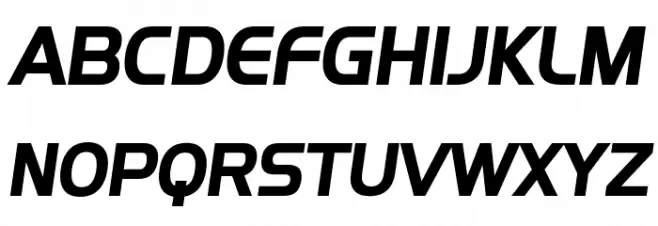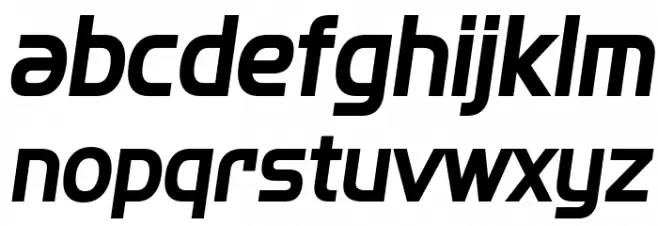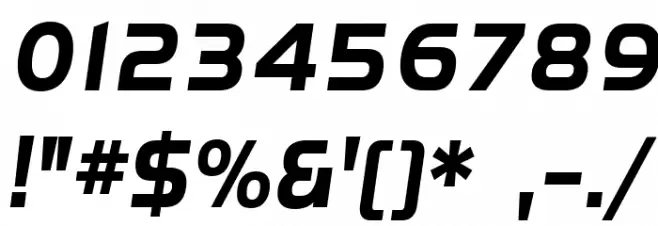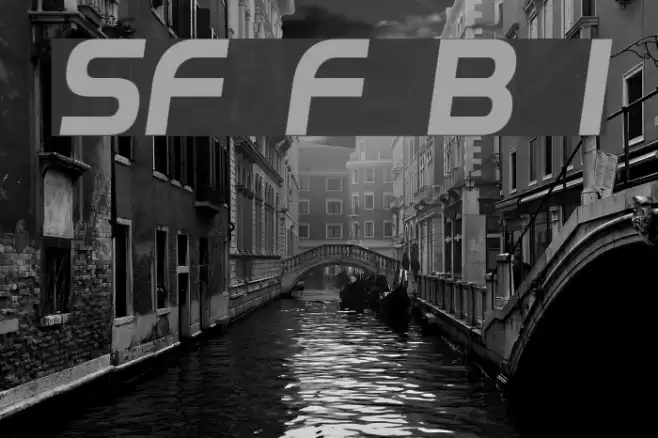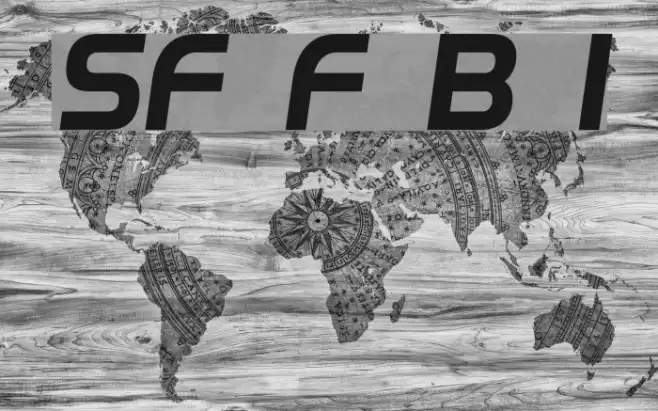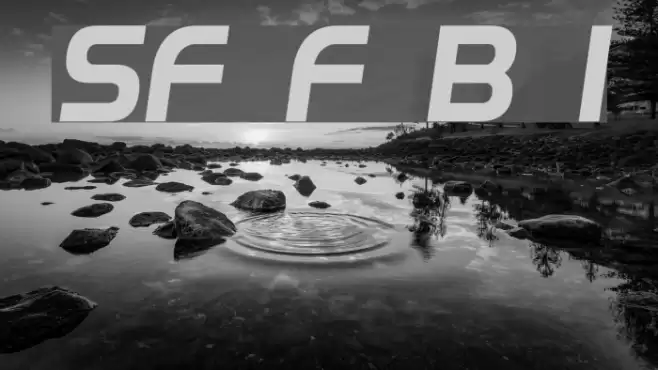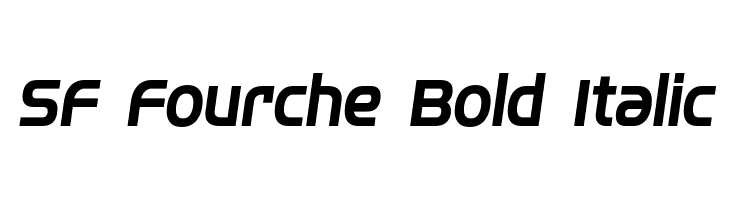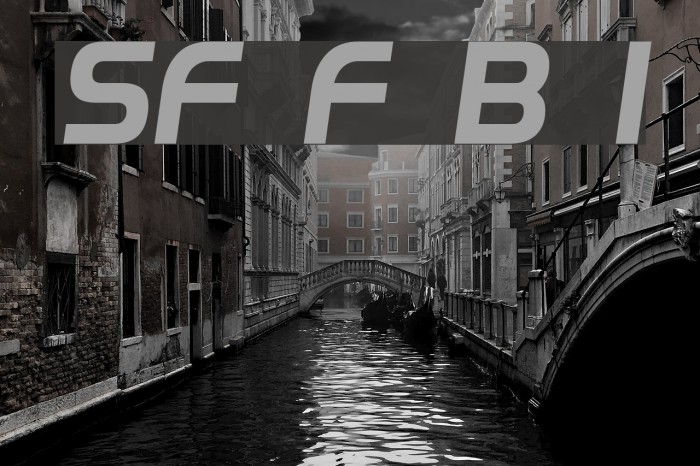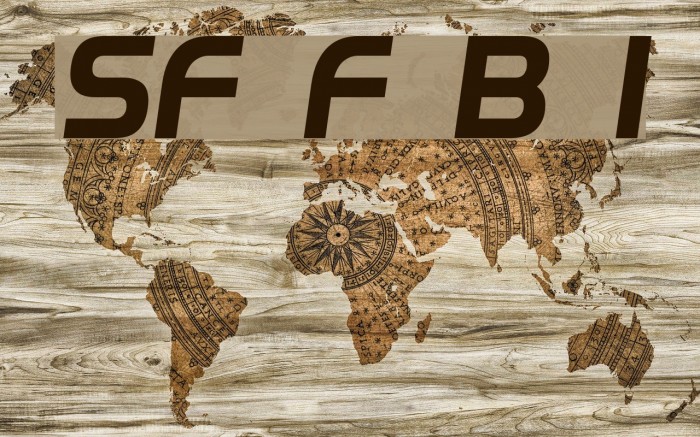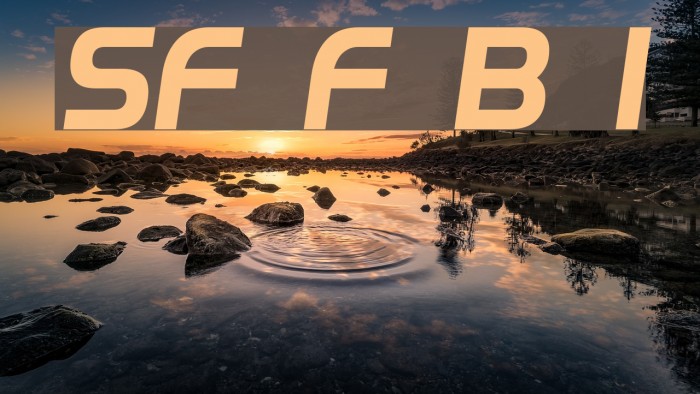
SF Fourche Bold Italic
This font features a bold and italicized style, combining a modern aesthetic with a dynamic slant. The characters are well-defined with a consistent stroke width, providing a strong and assertive appearance. The uppercase and lowercase letters maintain a uniform height, while the numerals are clear and easily distinguishable. Special characters are included, enhancing its versatility. The overall design is sleek and contemporary, making it suitable for various digital and print applications.
A bold, italicized font with a modern and dynamic style.
- Proposed Projects: Ideal for branding, advertising, and headlines where a strong, modern impact is desired.
- Use Case: Headlines, Logos, Branding